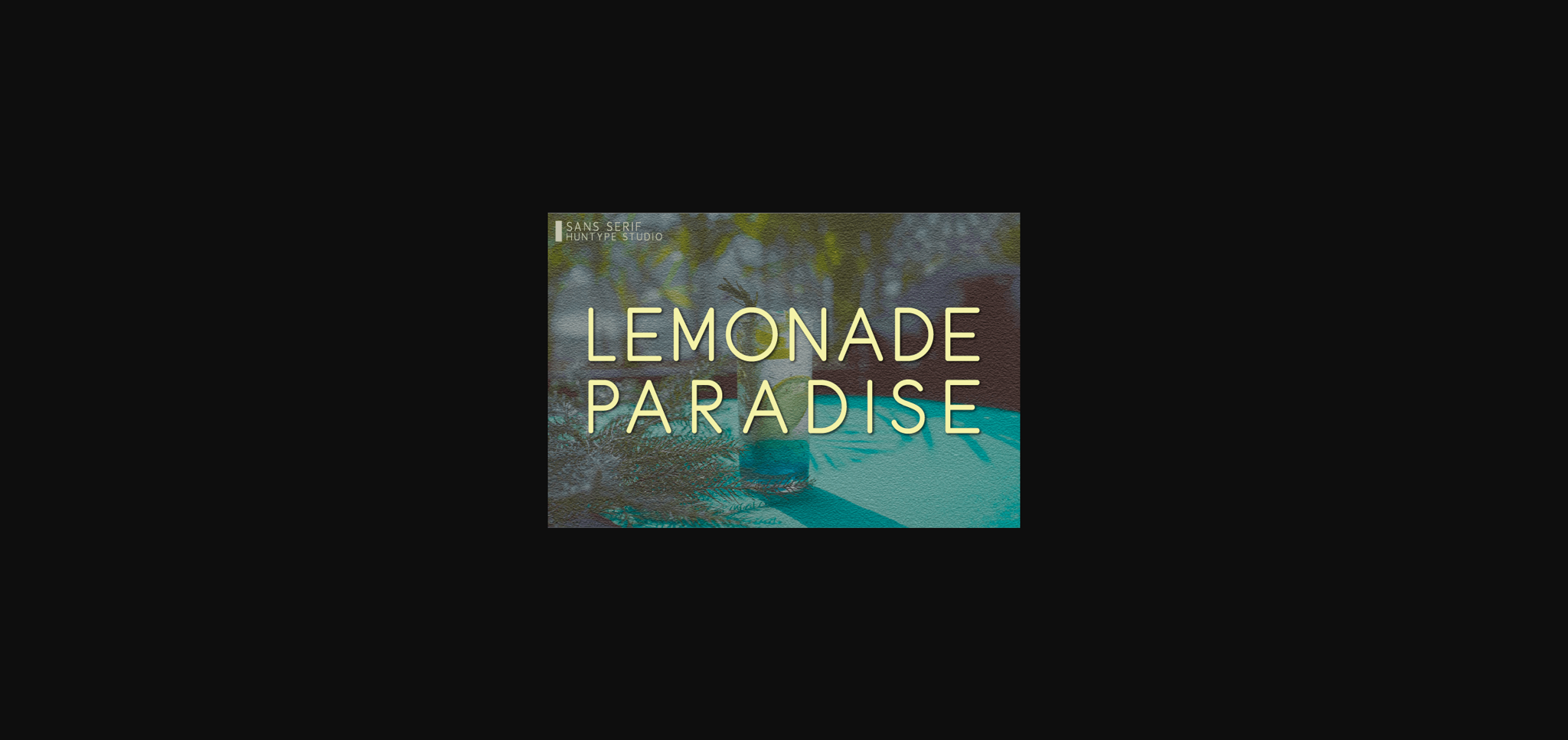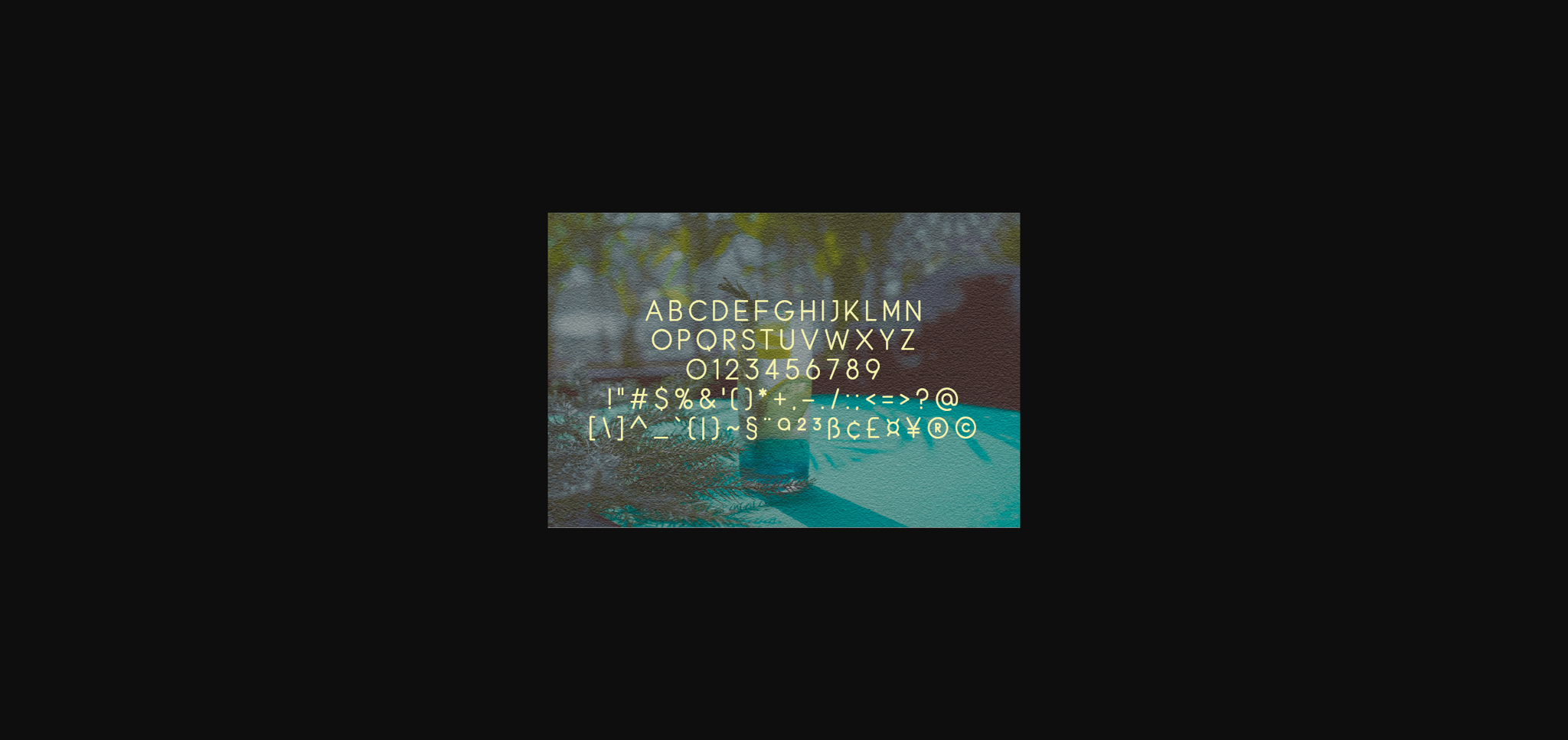
About Lemonade Paradise Font
Lemonade Paradise is an all-caps sans serif font that is so versatile and looks great in just about any context. With smooth and clean lines and just a touch of contrast, this font works beautifully for logos, branding, and web headings.